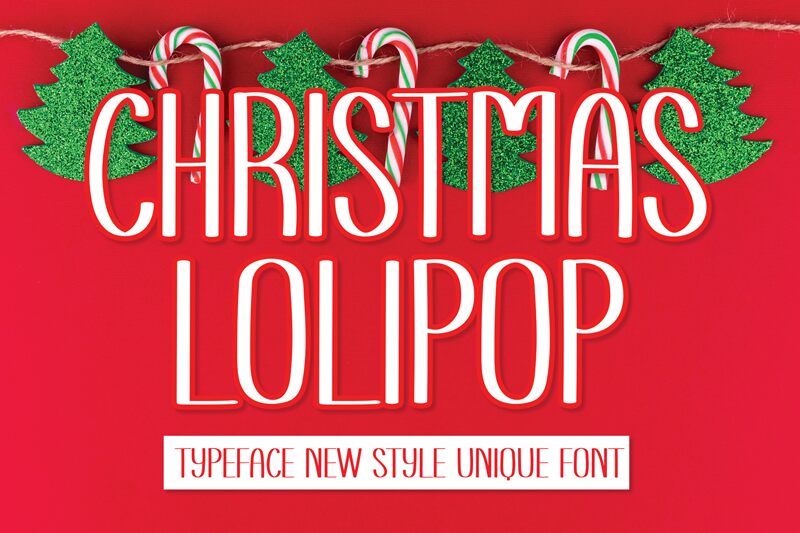
Christmas Lolipop
Christmas Lolipop, designed by Scratchones, offers a whimsical handwritten touch to your festive creations. Its semi-light weight and extra-condensed width give it a playful yet refined look that's perfect for conveying warmth and holiday cheer. The font's aesthetic effortlessly combines casual charm with a touch of elegance, making it an excellent choice for personalized greeting cards, event invitations, or any project that requires a handcrafted feel.
Its unique style captures the joyous spirit of the season while maintaining legibility and sophistication. Christmas Lolipop is versatile enough for both digital designs and print materials. Whether you're looking to add a festive flair to your marketing materials or crafting a cozy holiday menu, this font will infuse your work with the merry essence of Christmas in an invitingly modern way.